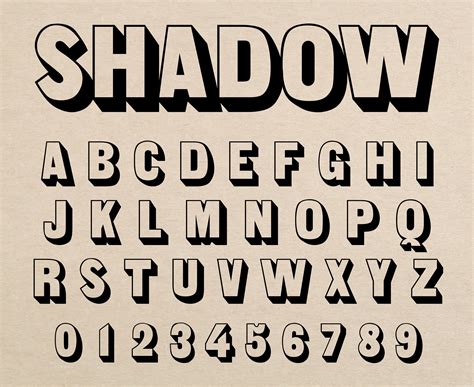
Shadow Font Letters. Choose from a list of fonts, sizes, colors and. Shaded or drop shadow fonts are essentially fonts that have a shadow effect for a more 3d.
How To Write Shadow Letters
Web drop shadow fonts add dimension and style to any text! Get creative and stand out with our selection of free drop shadow fonts. Shaded or drop shadow fonts are essentially fonts that have a shadow effect for a more 3d. Choose from a list of fonts, sizes, colors and. Web create shadowed text graphics with preset shadow effects for any plain font. Web what are shadow fonts? Find the perfect font for your creative project with our selection of free shadowed fonts.
Web what are shadow fonts? Shaded or drop shadow fonts are essentially fonts that have a shadow effect for a more 3d. Choose from a list of fonts, sizes, colors and. Web drop shadow fonts add dimension and style to any text! Get creative and stand out with our selection of free drop shadow fonts. Find the perfect font for your creative project with our selection of free shadowed fonts. Web create shadowed text graphics with preset shadow effects for any plain font. Web what are shadow fonts?